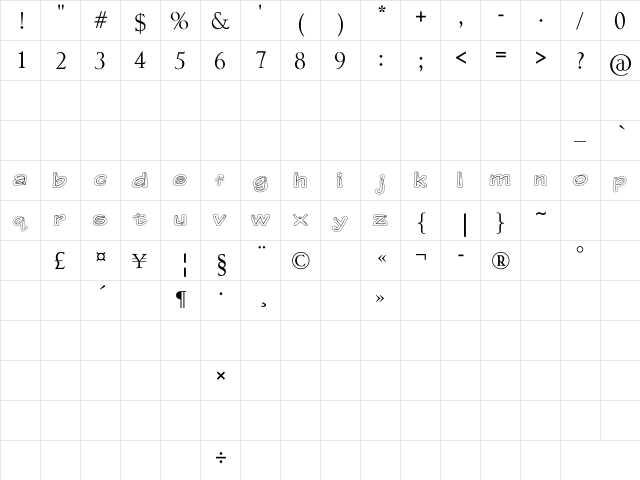
Gerbera Personal Use Only Regular
| Designer | Jamel E. Robin |
Design Context for Gerbera Personal Use Only Typeface
Gerbera Personal Use Only is a composed and adaptable typeface that performs quietly and consistently across a wide range of design contexts.